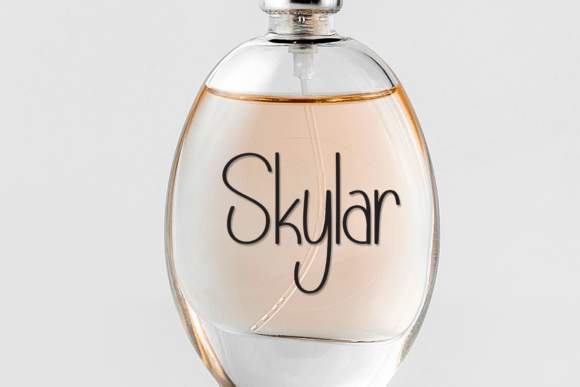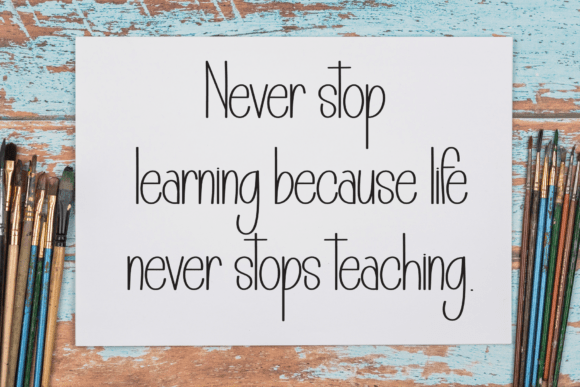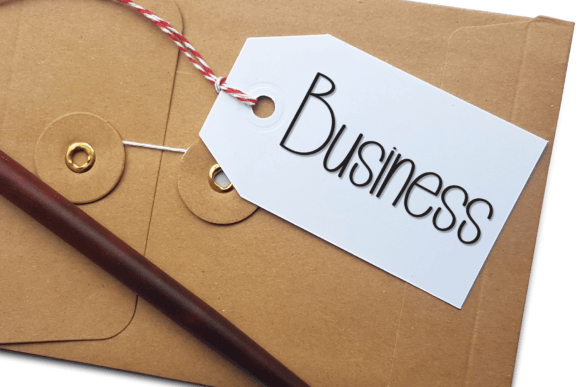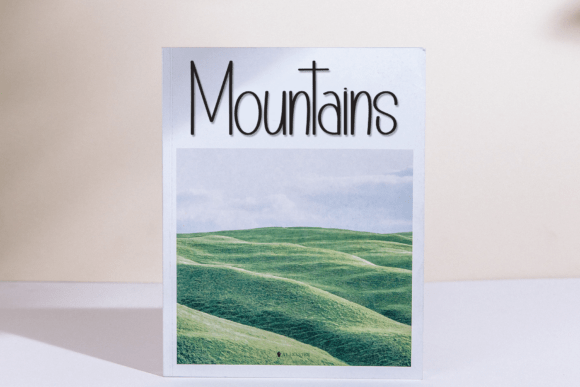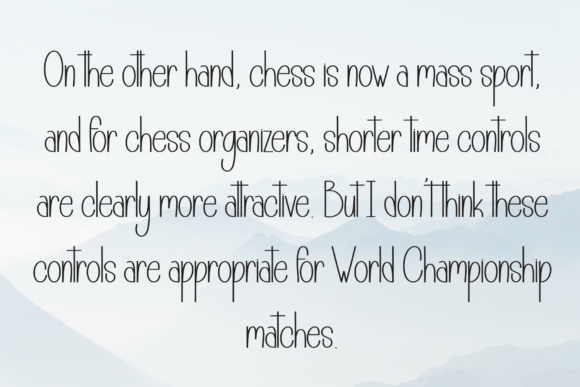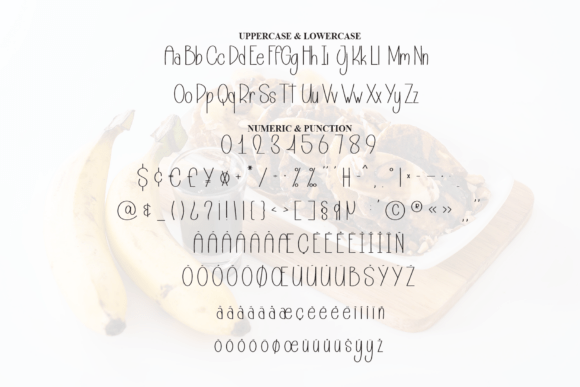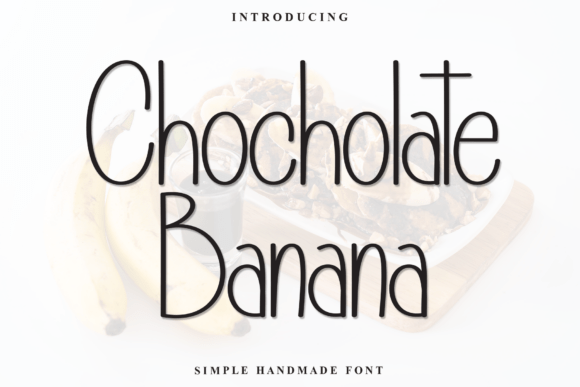
Introducing Chocholate Banana Font: The Perfect Blend of Warmth and Personality
In the world of typography, few fonts manage to capture the essence of authentic handwriting while exuding a modern, approachable feel. Chocholate Banana Font is one such gem that has been making waves in the design community. This casual handwritten font is designed to radiate warmth and personality, making it an ideal choice for designers and crafters looking to add a personal touch to their creations.
The Charm of Chocholate Banana Font
Chocholate Banana Font boasts smooth strokes, natural curves, and easy-flowing letterforms that work in harmony to create a visually appealing and highly readable font. The design process behind this font involved meticulous attention to detail to ensure that each character not only flows effortlessly into the next but also stands out with its unique charm. The result is a font that feels both modern and timeless, perfect for a wide range of design projects.
Key Features of Chocholate Banana Font
- Smooth Strokes and Natural Curves: The font features smooth, fluid strokes and natural curves that give it a handcrafted feel, making it perfect for designs that require a personal touch.
- Effortless Style: Chocholate Banana Font has an effortless style that lends itself well to various design applications, from casual social media posts to more formal invitations and branding materials.
- Versatile Character: The font’s versatile character set ensures that it can be used across different languages and design projects, offering designers a wide range of creative possibilities.
- Readability and Charm: One of the standout features of Chocholate Banana Font is its ability to deliver both readability and charm, a combination that is hard to find in many fonts.
Ideal Uses for Chocholate Banana Font
Given its unique characteristics, Chocholate Banana Font is suited for a variety of design projects. Here are some of the ideal uses for this versatile font:
- Quotes and Inspirational Messages: The font’s handcrafted feel and warmth make it perfect for quotes and inspirational messages that require a personal and friendly touch.
- Invitations and Event Branding: Whether it’s a wedding invitation, a birthday party invite, or any other event, Chocholate Banana Font can add a touch of elegance and warmth to your designs.
- Branding and Packaging: For brands looking to convey a sense of approachability and friendliness, this font can be a great choice for their branding and packaging needs.
- Social Media Posts: In the digital age, social media posts play a crucial role in engaging with audiences. Chocholate Banana Font can help make your social media content stand out with its unique charm and readability.
Why Designers and Crafters Love Chocholate Banana Font
Designers and crafters are always on the lookout for fonts that can help them create unique and engaging designs. Chocholate Banana Font has quickly become a favorite among creative professionals for several reasons:
- Unique Aesthetic: The font offers a unique aesthetic that is hard to find in more traditional fonts, allowing designers to create standout designs.
- Versatility: Its versatility means that it can be used across a wide range of projects, from digital designs to print materials.
- Emotional Connection: The warmth and personality infused in Chocholate Banana Font help create an emotional connection with the audience, a crucial aspect of effective design.
Chocholate Banana Font is a remarkable addition to the world of typography, offering a perfect blend of warmth, personality, and versatility. Whether you’re a designer looking to elevate your branding projects, a crafter aiming to add a personal touch to your creations, or simply someone who appreciates beautiful typography, Chocholate Banana Font is sure to impress. Its smooth strokes, natural curves, and effortless style make it an ideal choice for a wide range of design applications. Discover the charm of Chocholate Banana Font and bring a new level of warmth and personality to your designs.